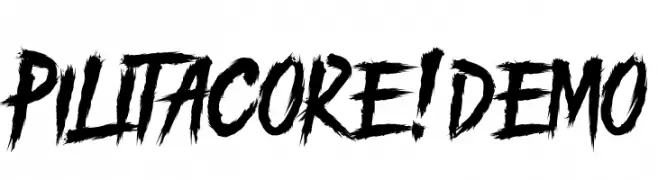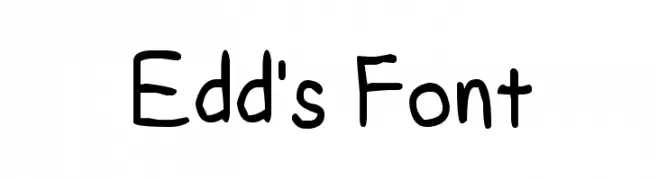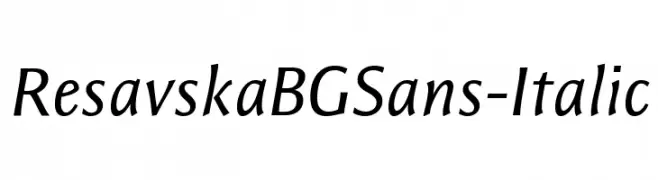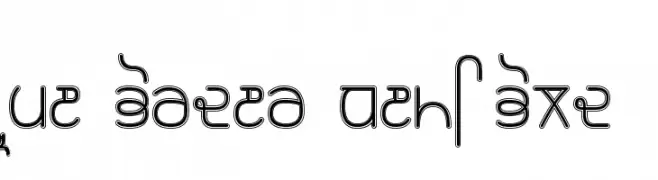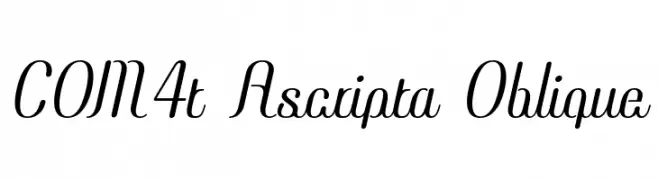
A bold, brush-style font with a dynamic and energetic appearance.
A modern, italic sans-serif font with a sleek and dynamic style.
A bold, decorative font with a double-line border effect.
A dynamic brush-style font with expressive, hand-painted strokes.
An elegant, oblique script font with smooth, connected strokes.
A clean, elegant serif font with thin strokes and a classic design.
A playful, bold font with a bubbly, hand-drawn appearance.